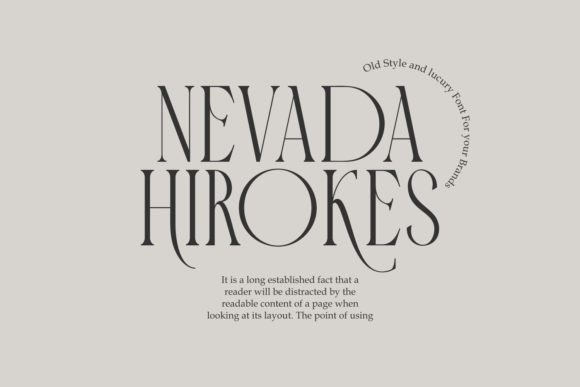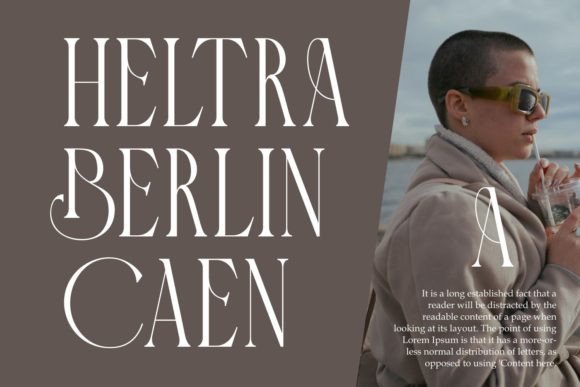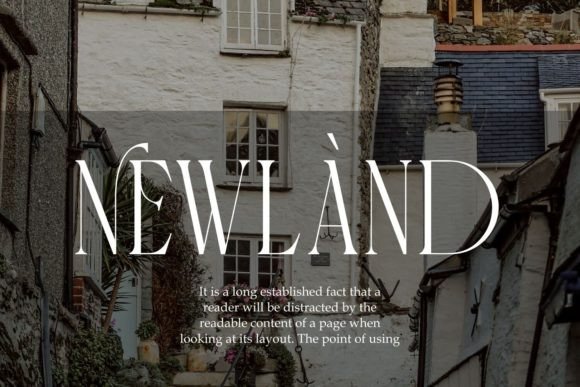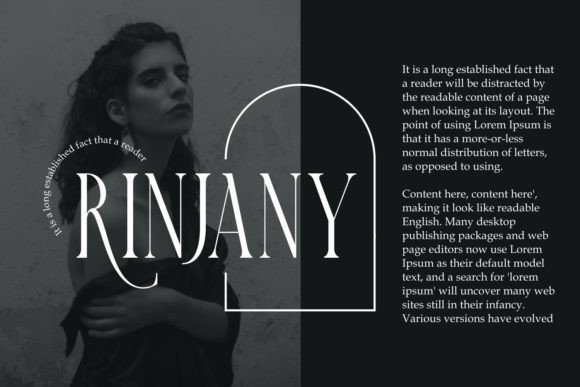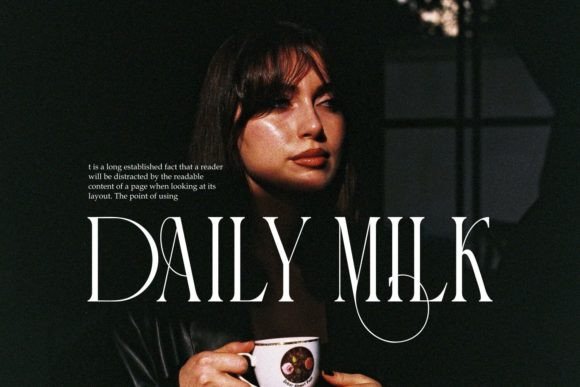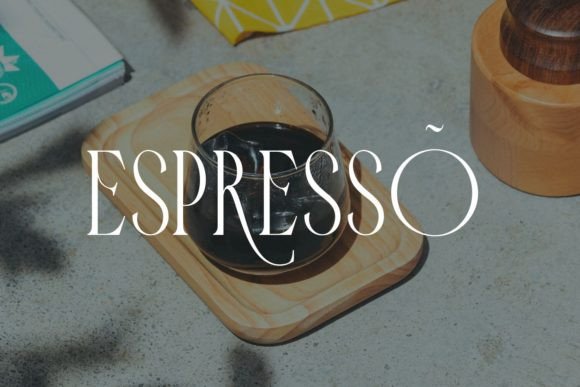
Introducing Galileo Font: Elevate Your Designs with Elegance
Are you a designer or crafter looking for a font that exudes sophistication and class? Look no further than the Galileo Font. This elegant serif font is designed to bring a touch of refinement to your projects, with a delicate and balanced look that is sure to impress.
The Characteristics of Galileo Font
Galileo Font is a masterclass in typography, boasting a range of characteristics that set it apart from other fonts. Here are just a few of the key features that make this font so special:
- Elegant Serif Design: Galileo Font features a classic serif design, with subtle flourishes that add a touch of sophistication to your text.
- Delicate and Classy Look: The font’s delicate lines and curves create a classy, refined look that is perfect for a range of design applications.
- Balanced and Varied: Unlike some fonts that can be too thin or too thick, Galileo Font strikes the perfect balance, with a varied range of line widths that keep your text engaging and easy to read.
What Makes Galileo Font So Versatile?
One of the things that sets Galileo Font apart is its incredible versatility. Whether you’re working on a logo, a website, or a craft project, this font is sure to enhance the beauty of your design. Here are just a few examples of how you can use Galileo Font:
- Logos and Branding: Use Galileo Font to create a sophisticated logo or brand identity that sets your business apart.
- Web Design: Add a touch of elegance to your website with Galileo Font, perfect for headings, titles, and other display text.
- Crafting and Scrapbooking: Galileo Font is also perfect for crafters and scrapbookers, adding a touch of class to your handmade projects.
Why Choose Galileo Font?
With so many fonts to choose from, why should you choose Galileo Font? Here are just a few reasons why designers and crafters love this elegant serif font:
- Unique and Distinctive: Galileo Font is a one-of-a-kind font that will set your designs apart from the crowd.
- Easy to Read: Despite its elegant design, Galileo Font is incredibly easy to read, making it perfect for body text as well as display text.
- Highly Versatile: As we’ve already discussed, Galileo Font is incredibly versatile, and can be used in a wide range of design applications.
Tips for Using Galileo Font
Now that we’ve covered the characteristics and benefits of Galileo Font, here are a few tips for getting the most out of this elegant serif font:
- Use it as a Display Font: Galileo Font is perfect for display text, such as headings and titles. Use it to add a touch of elegance to your design.
- Pair it with Other Fonts: Don’t be afraid to pair Galileo Font with other fonts to create a unique and interesting design.
- Experiment with Colors and Textures: Galileo Font looks great in a range of colors and textures. Experiment with different combinations to find the one that works best for your design.
In conclusion, Galileo Font is an elegant serif font that is sure to elevate your designs to the next level. With its delicate and classy look, balanced and varied design, and incredible versatility, this font is perfect for designers and crafters alike. Whether you’re working on a logo, website, or craft project, Galileo Font is the perfect choice. So why wait? Download Galileo Font today and start creating stunning designs that will leave a lasting impression.